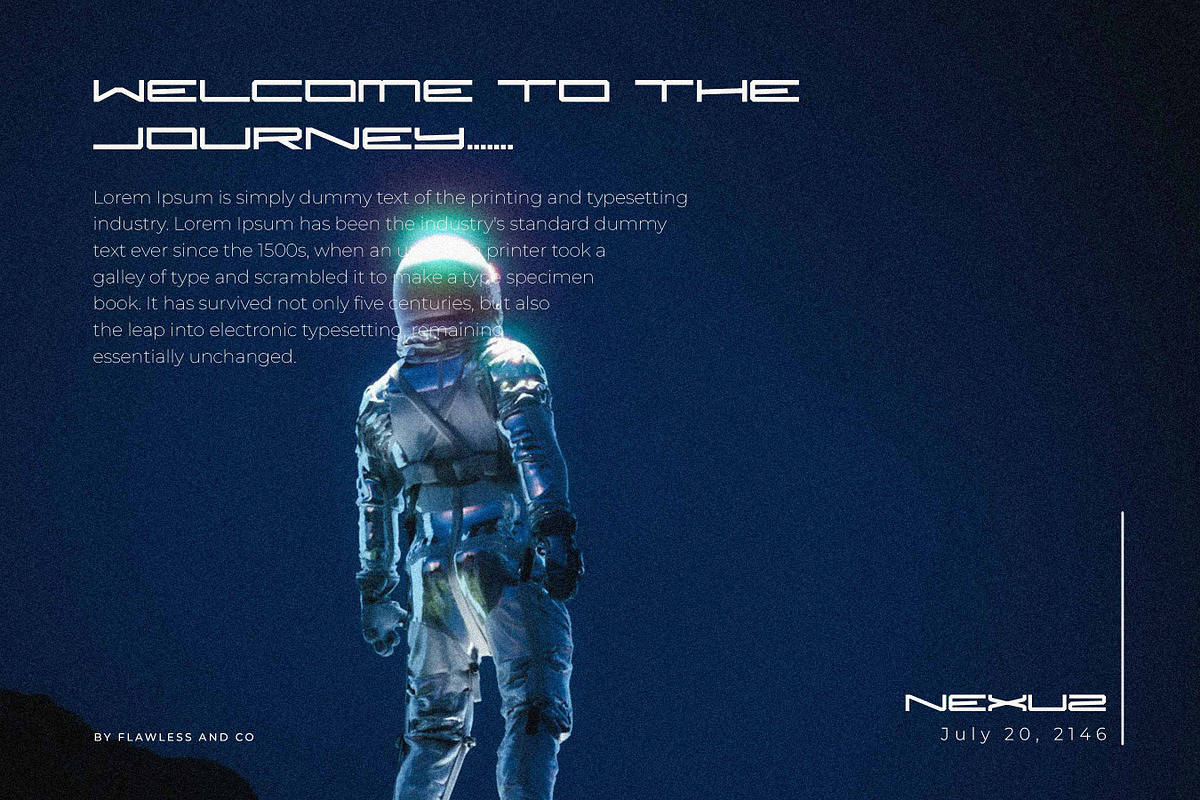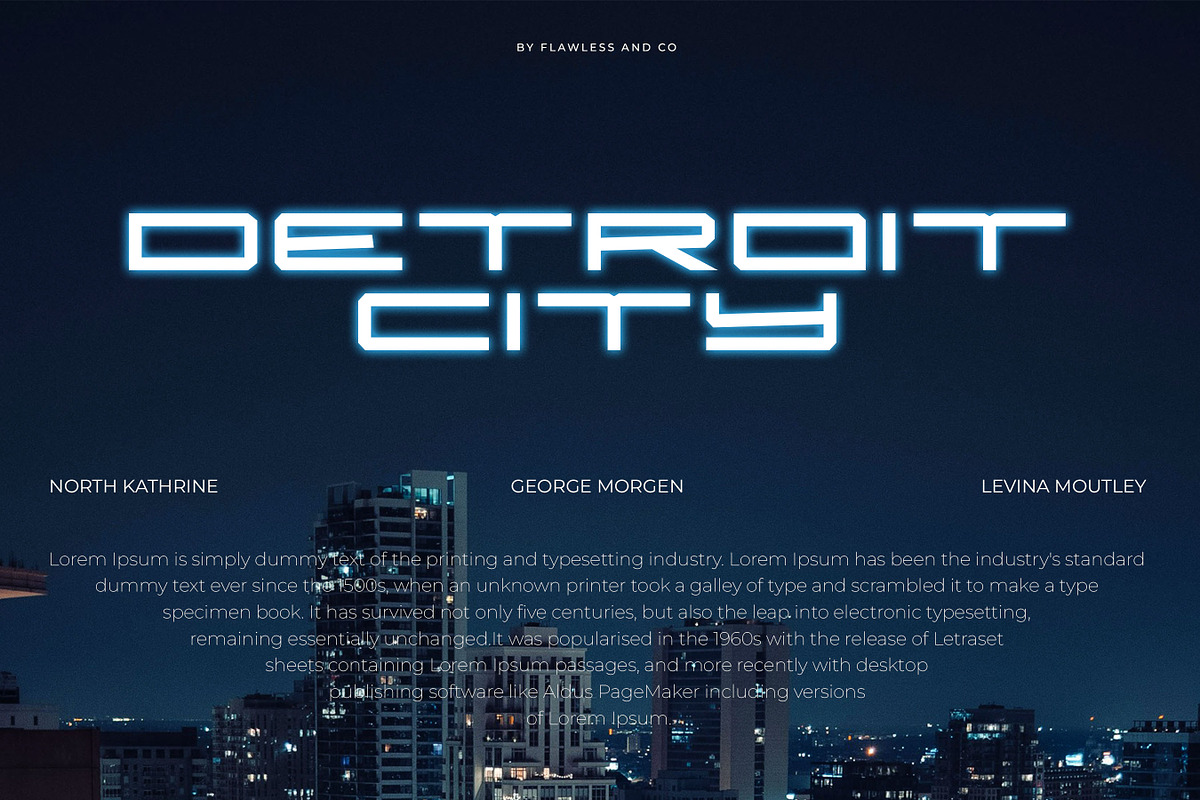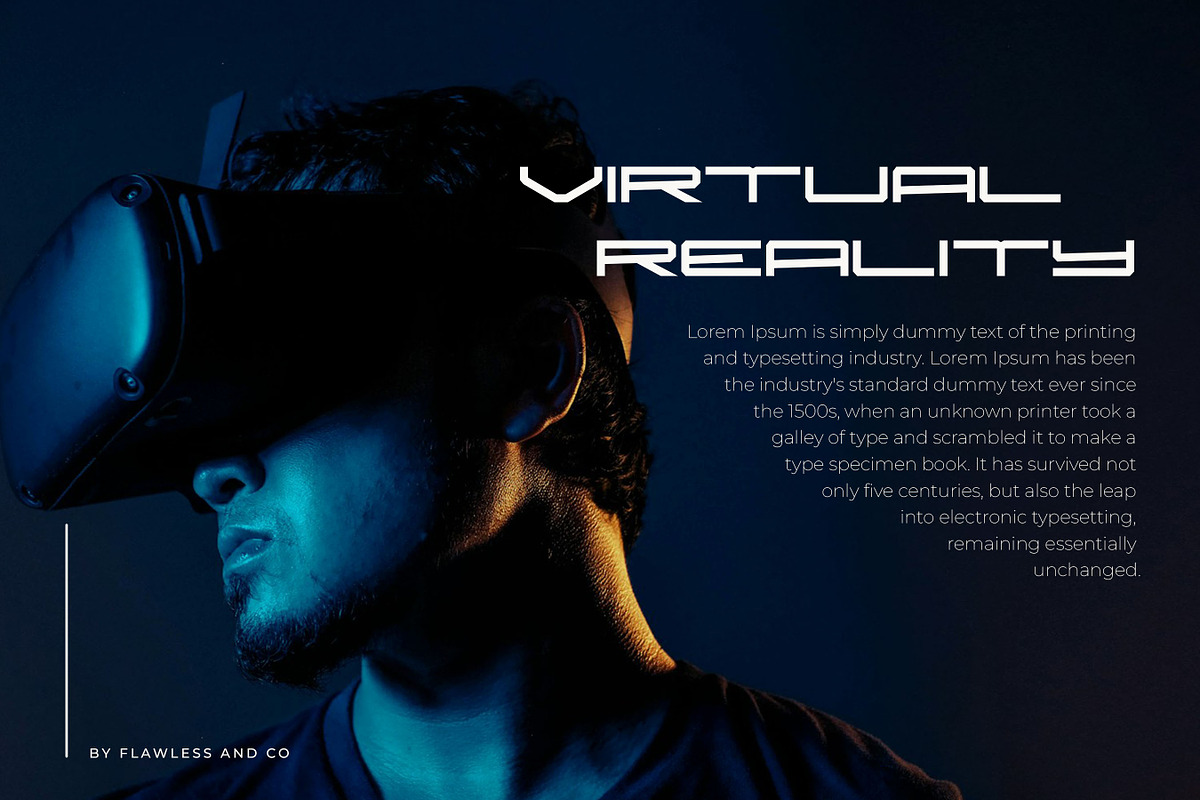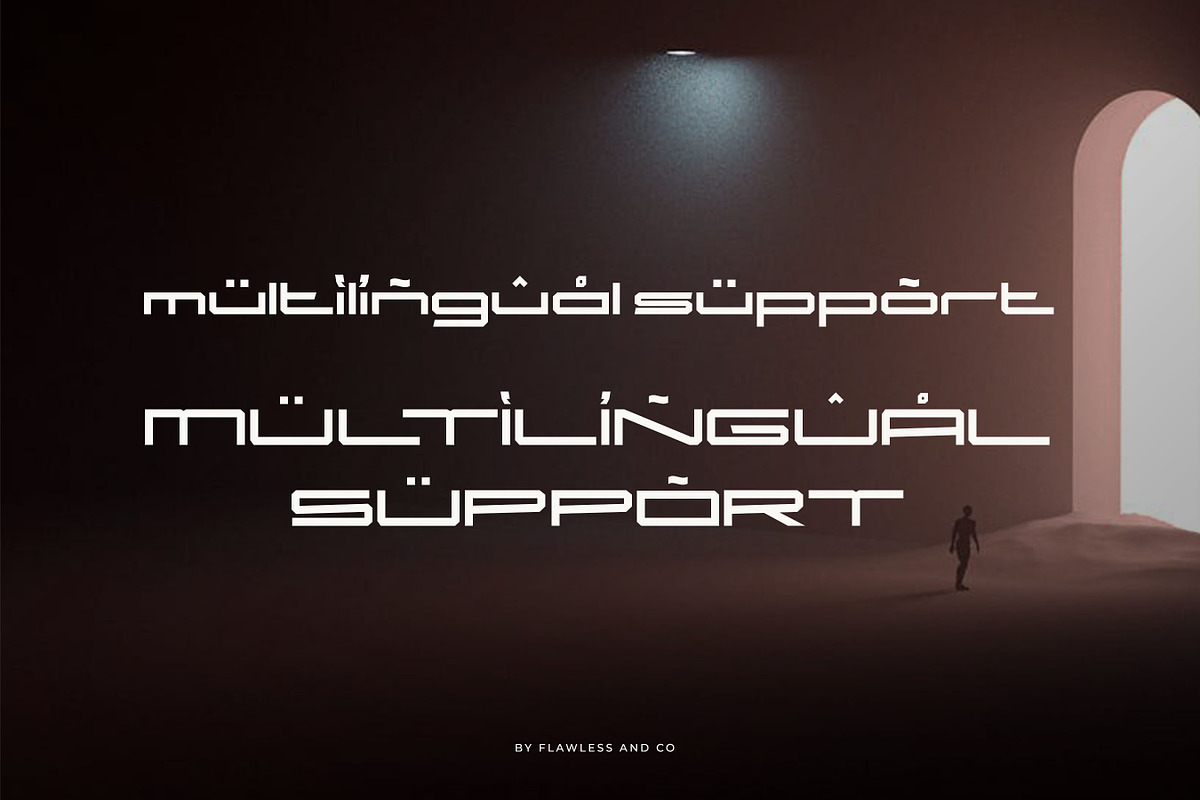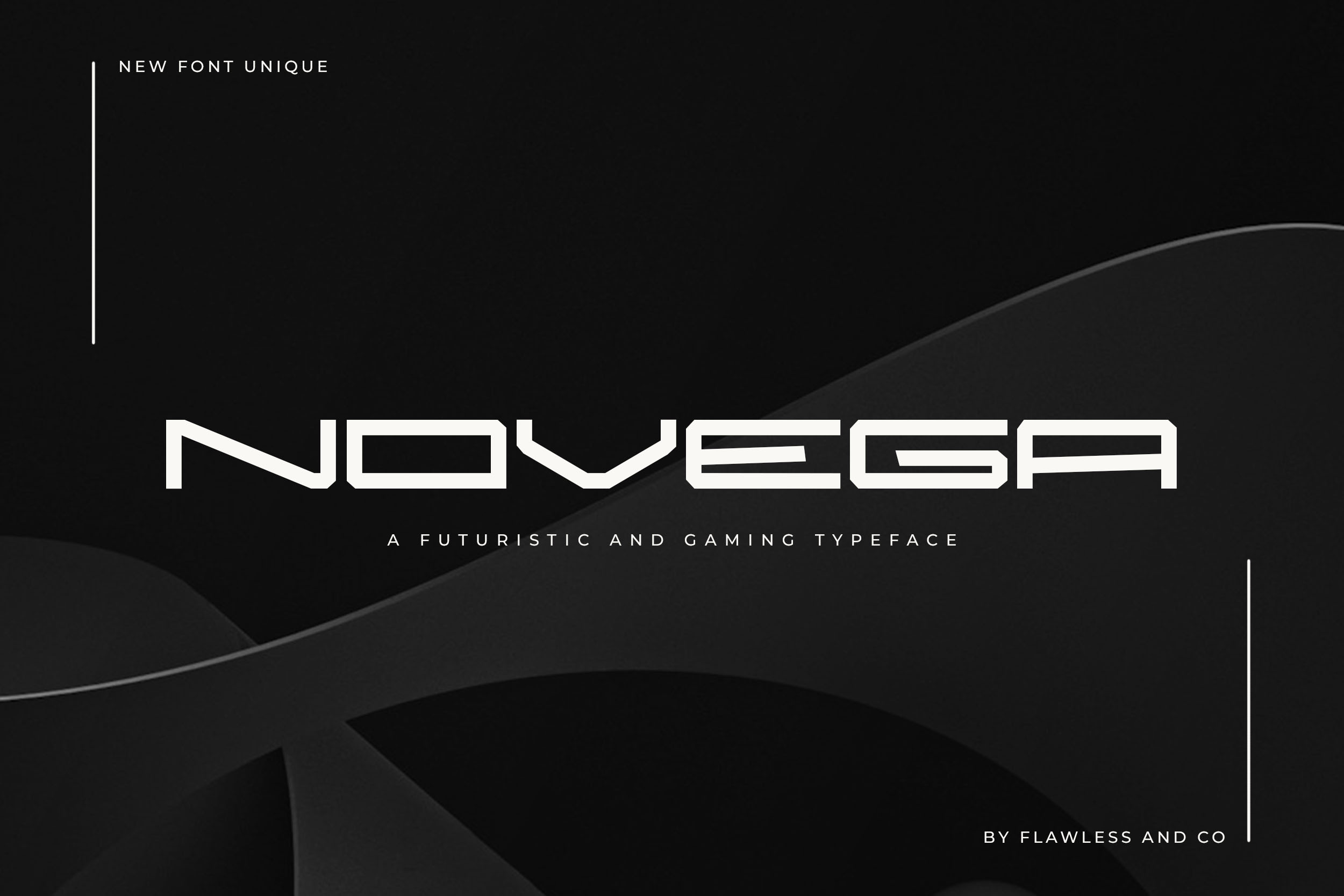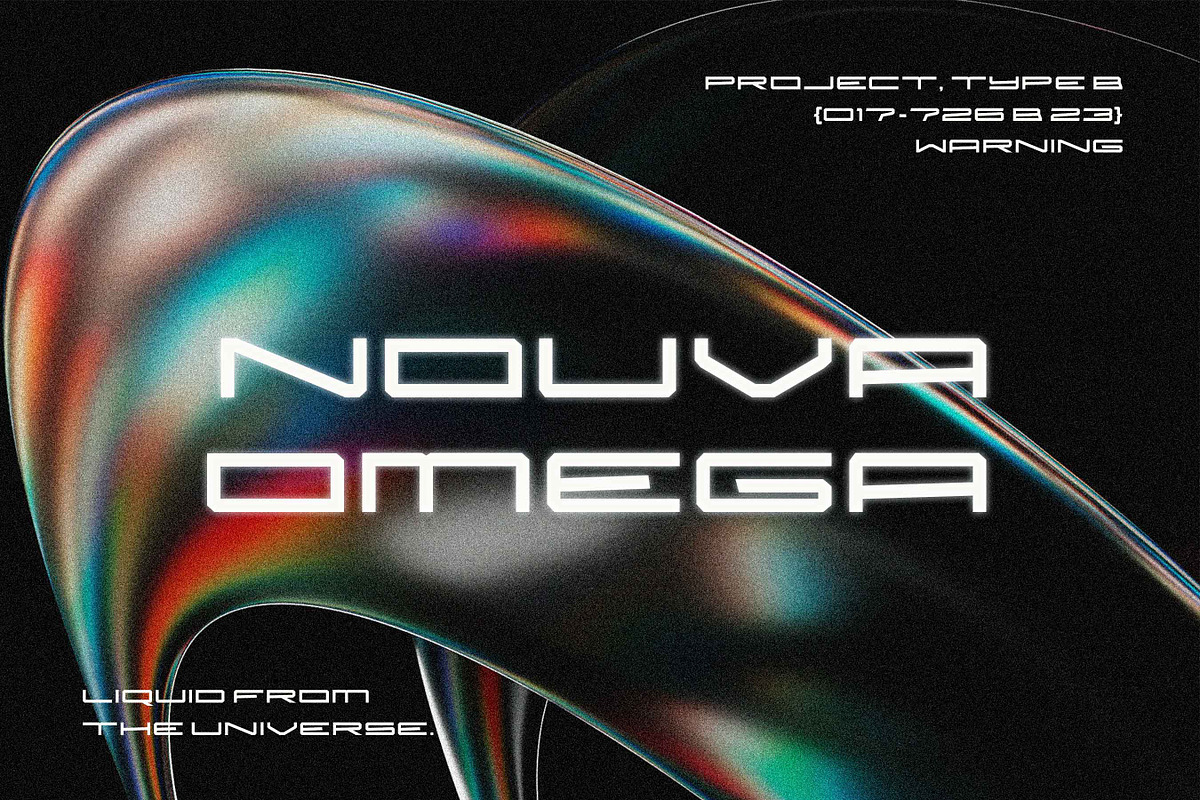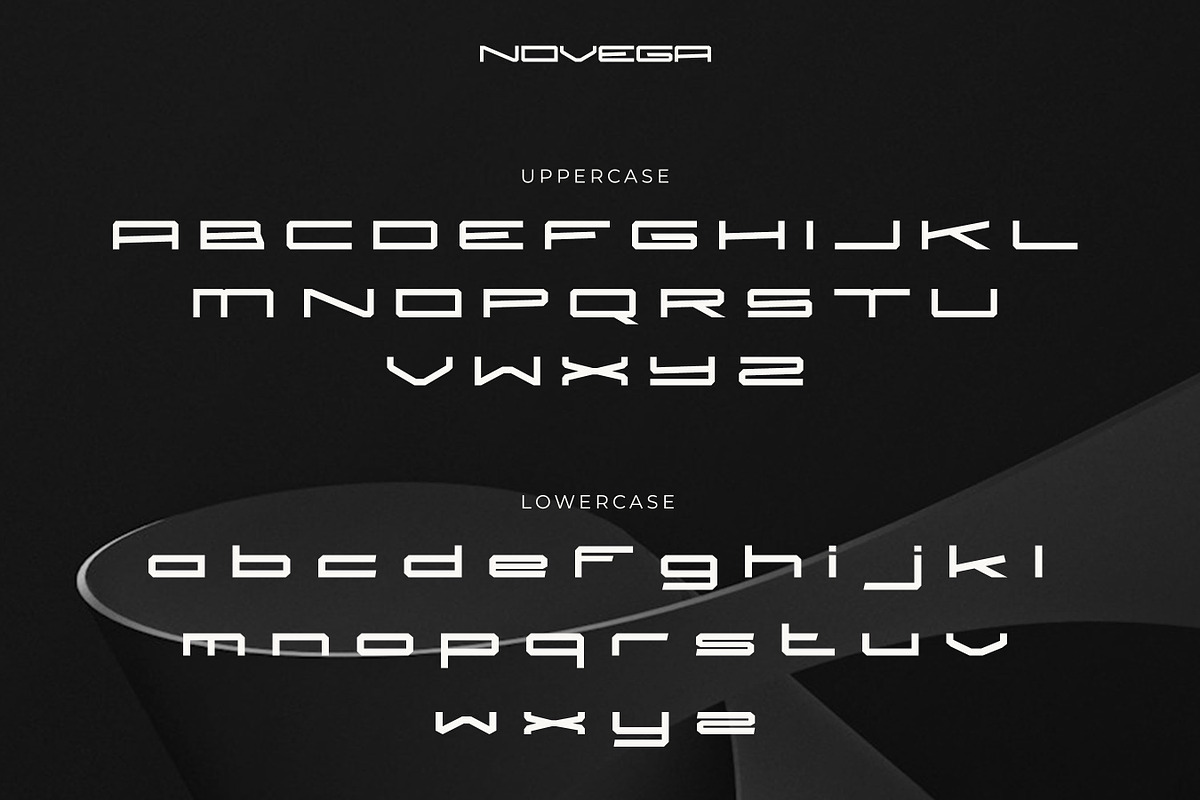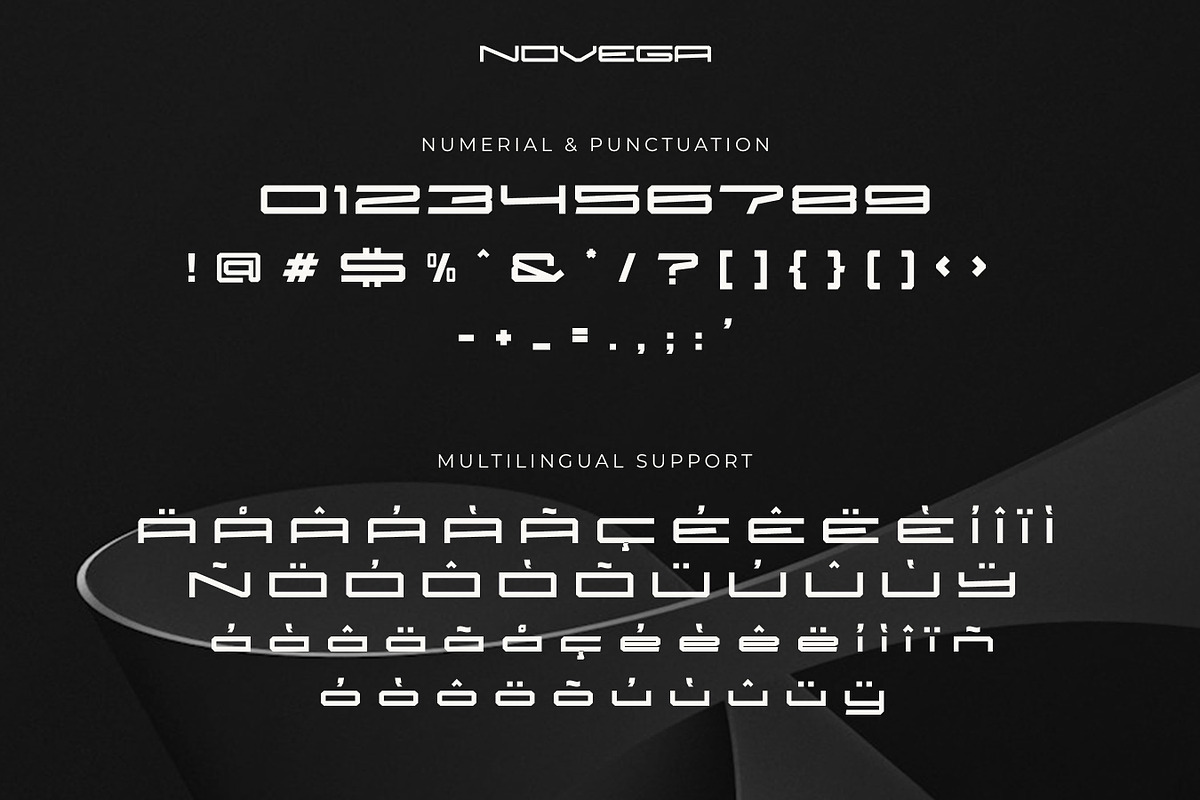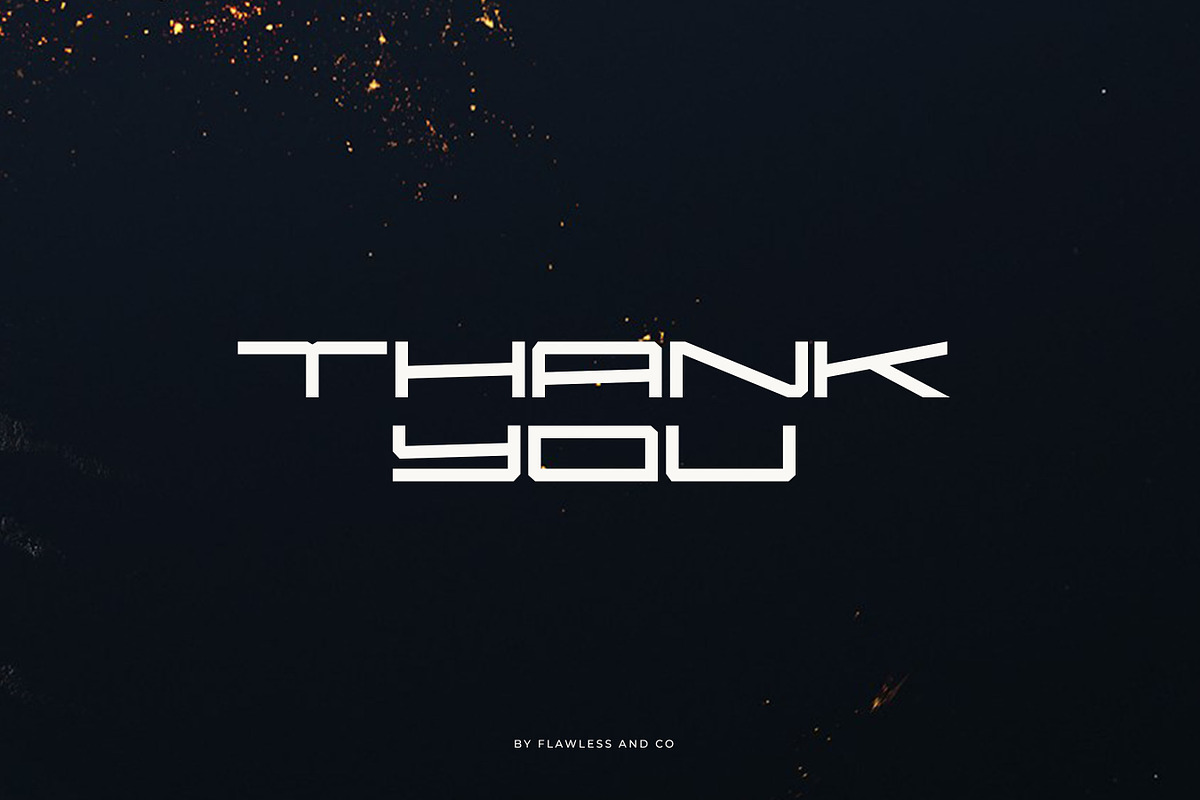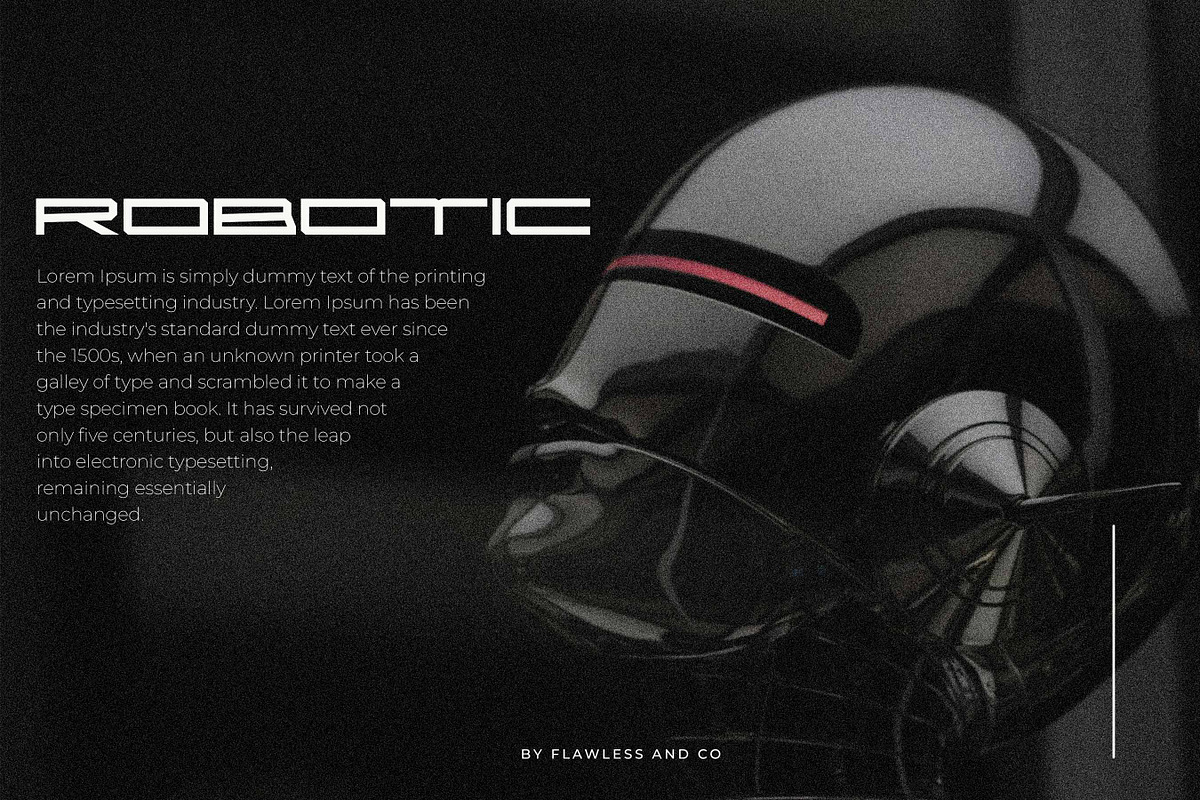
Novega - Sport Game Font
Introducing "Novega," a sleek and dynamic font designed to capture the energy and innovation of the gaming world. With its sharp, futuristic design, Novega is the perfect choice for game titles, user interfaces, esports branding, and any project that demands a cutting-edge, modern aesthetic.
Multilingual Uppercase alphabet A-Z Lowercase alphabet a-z Numbers 0-9 Some punctuation